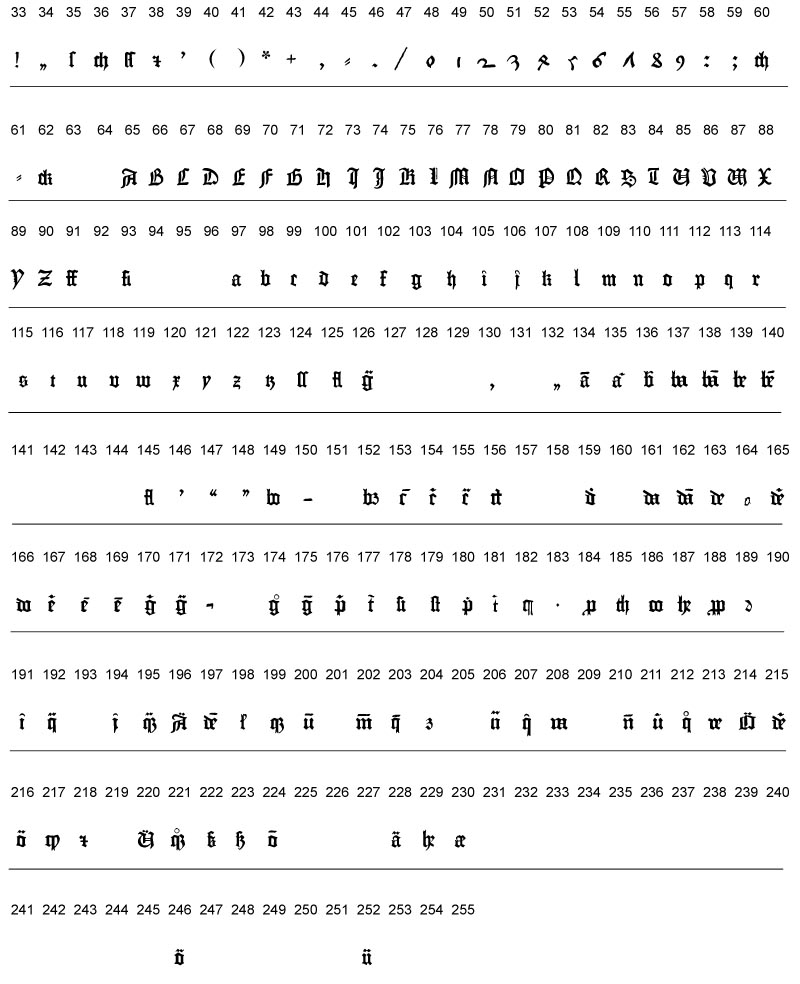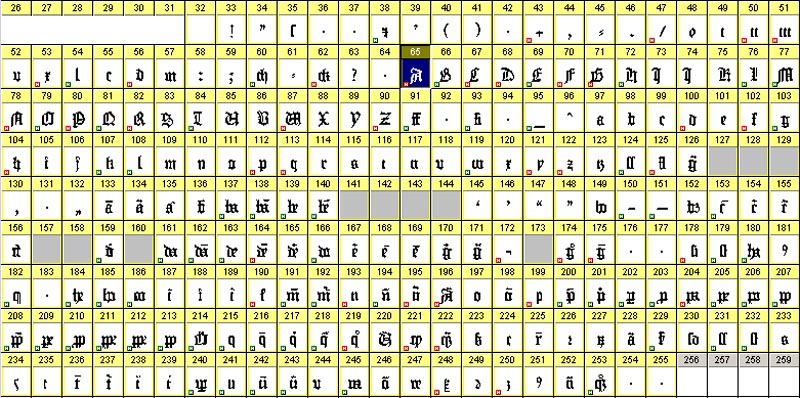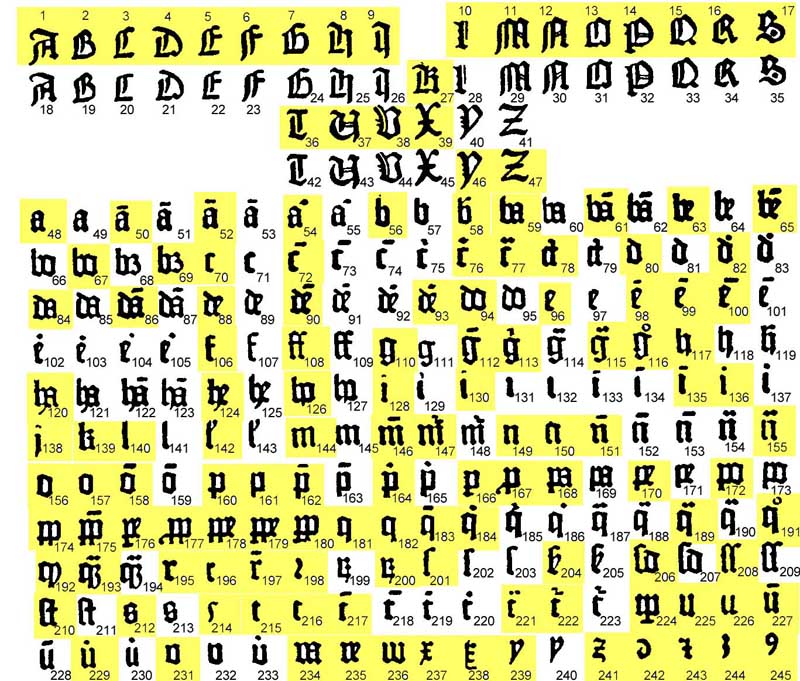
Gutenberg B42 Font Set
List of all Gutenberg glyphs from various Gutenberg prints
yellow marked are those
which have been taken in the font fileVollständige Liste aller von Gutenberg benutzten Drucklettern -
gelb markiert sind die bisher in
die Font-Dateien übernommenen Typen
kurze Erläuterung einiger von Gutenberg verwendeter Kürzungszeichen -
some of Gutenberg's shortcuts
The Font-Set is subject to change - more glyphs will be added
Font-Set Gutenberg Advanced
The Numbers are latin: i=1, ii=2, iii=3, v=5, x=10, L=50, C=100, D=500, M=1000